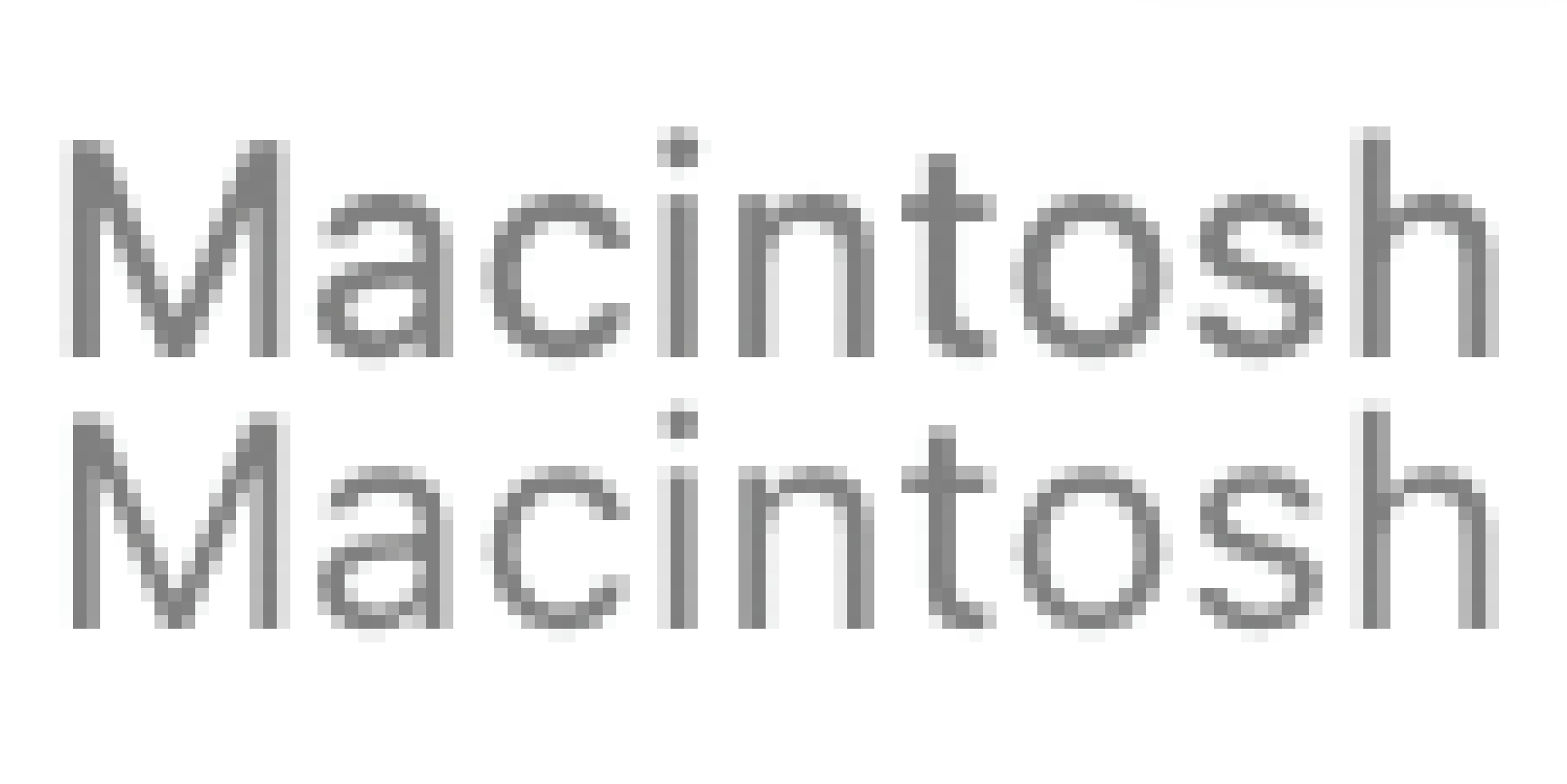
In my MBP I recently noticed that all fonts got thin and because of that they are somehow uncomfortable to read. It happened only to my account, when I create a new one, everything is ok. It affects all fonts. Here's the example - new account vs my account (image is zoomed in to show the problem on pixel level).
I tried to tweak CGFontRenderingFontSmoothingDisabled and AppleFontSmoothing from terminal but they seem to not affect anything (even after system restart). I even used TinkerTool and tried to disable font smoothing there, but it also doesn't change anything.
What is the culprit? I do not want to migrate my whole account to new one - this must be fixable somehow. Does anyone know what to do?